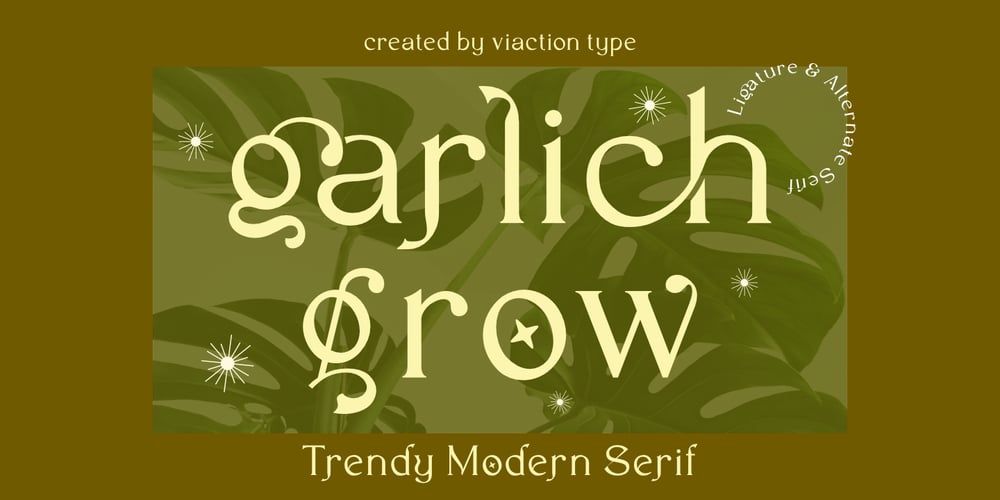
Garlich Grow Font Family was designed by Lukman Hidayat and published by Viaction Type.Co. Garlich Grow contains 1 styles and family package options. Garlich Grow is a serif font with a modern & elegant touch. The thin character is perfect for the design needs of a modern & elegant layout. Equipped with alternates, standard ligature and multilingual tools to make it easier for you to use various design purposes.Get it now Garlich Grow fonts, to add to your collection and work solutions.Thanks.Viaction Type Co